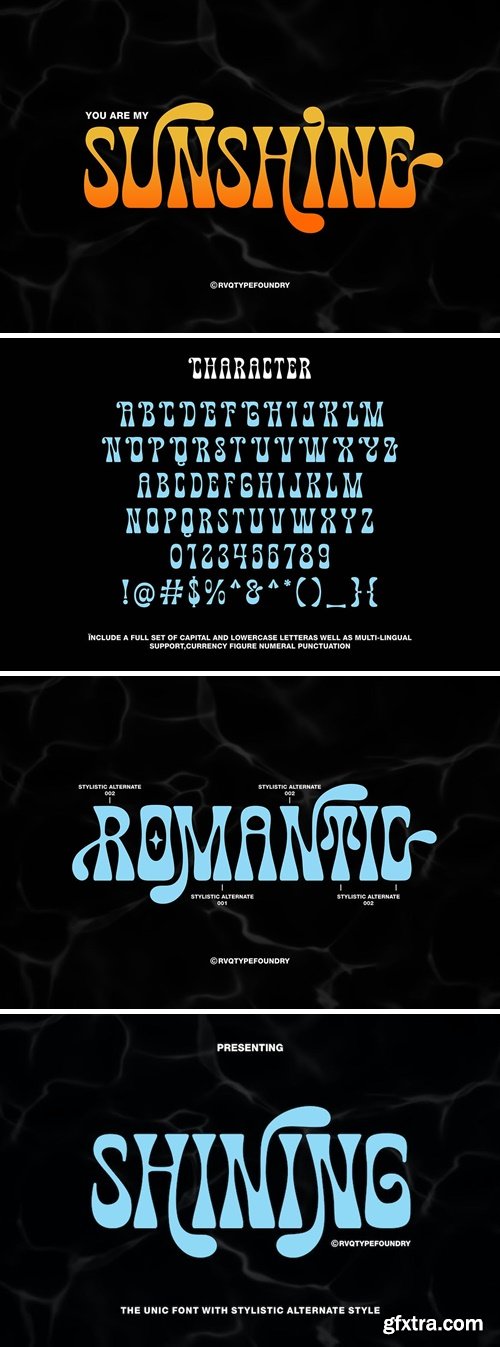
Shining Typeface Font
The Shining typeface is new font from Rvq Typefoundry, vintage and elegant feel character set. To create the beautiful combination, just mix the uppercase and lowercase then mix with the alternative glyphs. The Shining typeface includes a full set of capital and lowercase letters, as well as multi-lingual support, currency figures, numerals, punctuation & some extra glyphs.